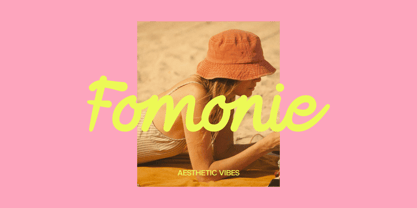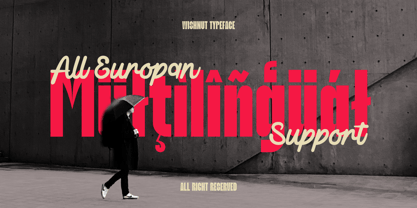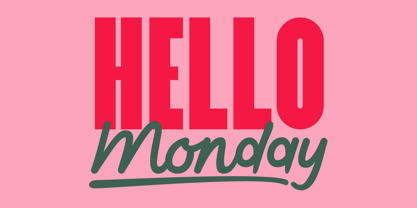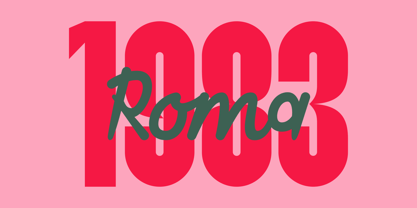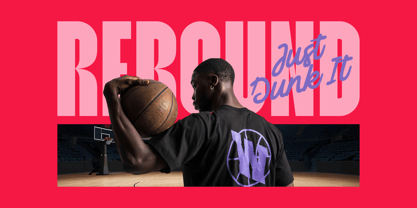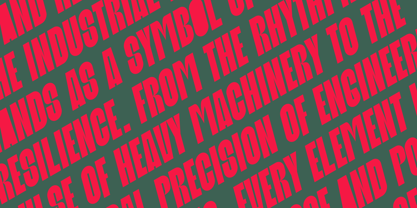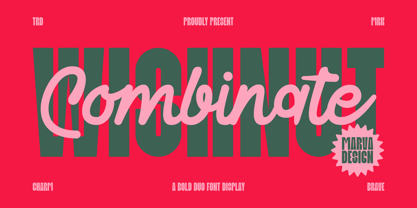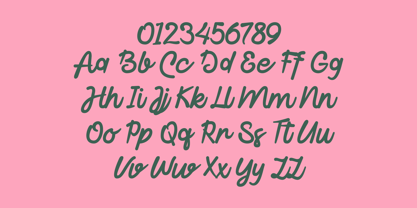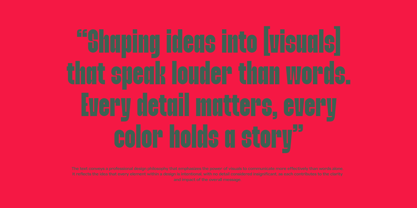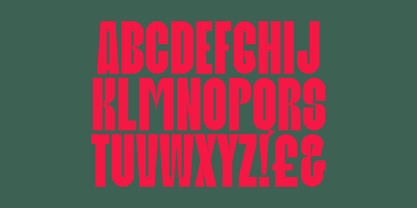
Wishnut
by Marvadesign
The Wishnut Font Family was designed by Febrie Setiawan and published by Marvadesign. Wishnut contains 3 styles and family package options. More about this family
Wishnut is a bold and expressive display font family designed to bring strong visual impact and playful personality into any creative project. The typeface comes in three distinctive styles Condensed, Condensed Italic, and Script each crafted to complement one another through contrast and rhythm. The Condensed style features tall, powerful letterforms with sharp vertical emphasis, making it perfect for headlines, posters, and striking typographic compositions. Its geometric structure and compact spacing create a solid, modern presence that commands attention. The Condensed Italic variant introduces a subtle forward lean, adding motion and energy while maintaining the boldness of the original condensed style ideal for dynamic layouts or expressive editorial design. Accompanying these is the Script style, which brings a smooth, flowing handwritten aesthetic. Its organic curves, rounded terminals, and soft rhythm add warmth and charm, making it a perfect contrast to the heavy condensed forms. Together, these three styles create a versatile duo-display system that blends strength with elegance. Wishnut is designed for branding, posters, editorial headlines, social media graphics, and any visual work that demands bold typography paired with expressive personality.
Designers: Febrie Setiawan
Foundry: Marvadesign